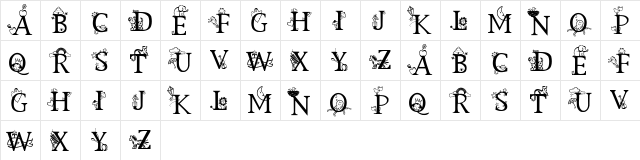
Kids Alphabet Regular
Design Context for Kids Alphabet Typeface
Kids Alphabet has an approachable, lighthearted character — its loose, expressive forms are well-suited to children's content, casual branding, and fun-first design.
Font Pairing: Pairs well with a rounded or humanist sans for body copy, maintaining the friendly tone without relying on Kids Alphabet to carry extended reading.
Pro Tip: Avoid using Kids Alphabet for long passages of text — it works best for headlines, labels, and short calls to action.